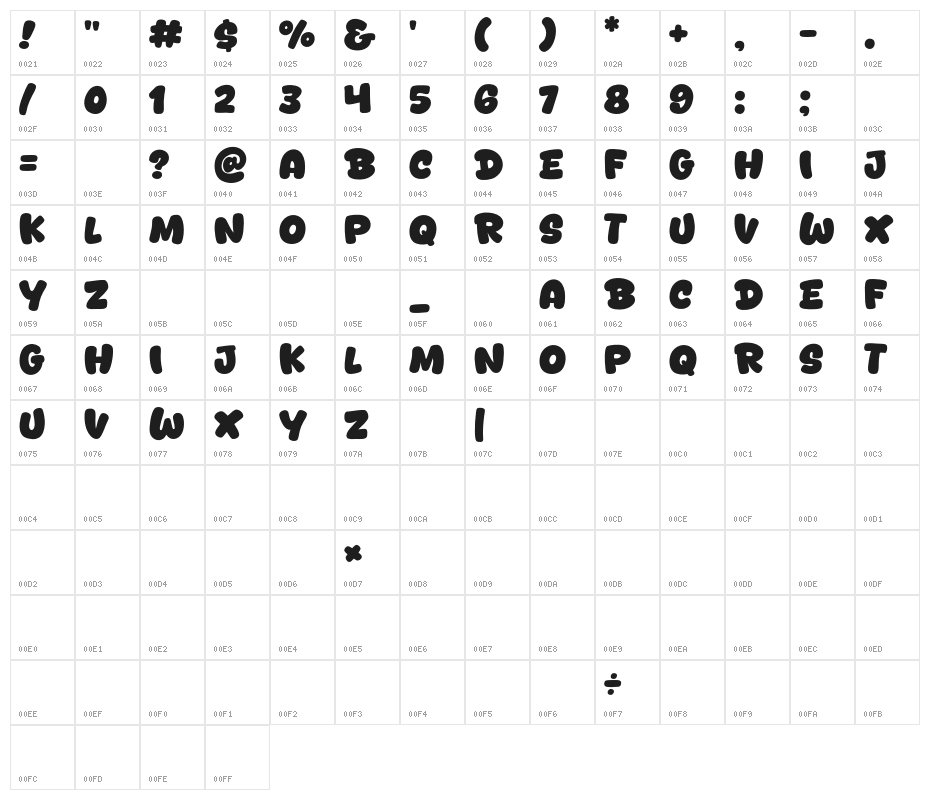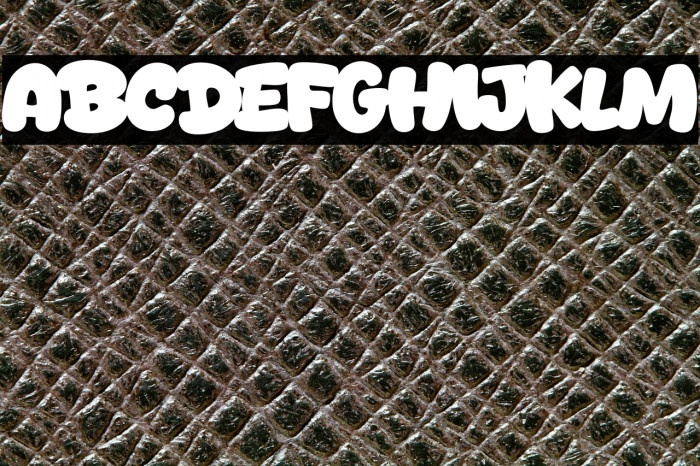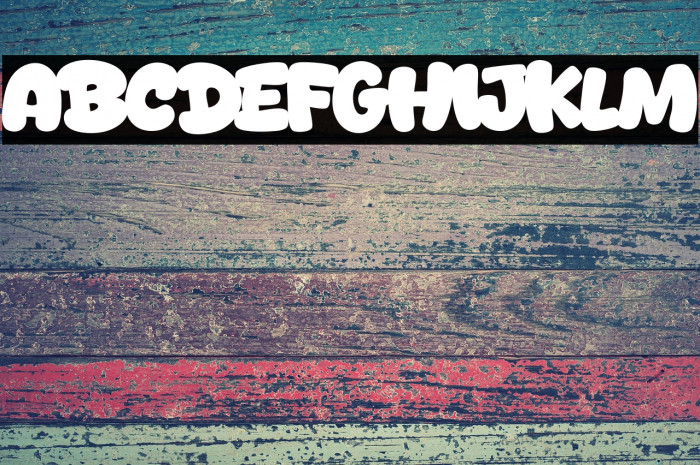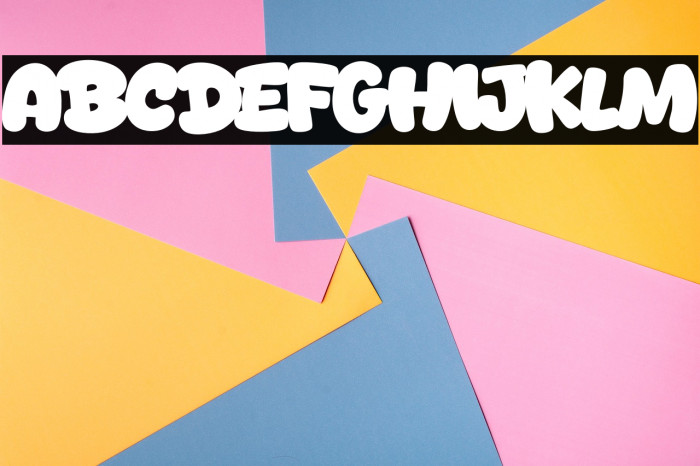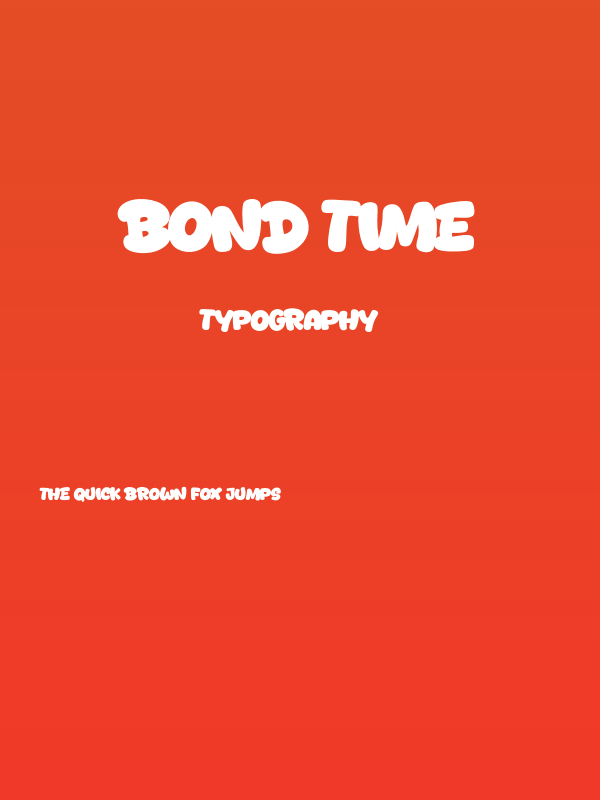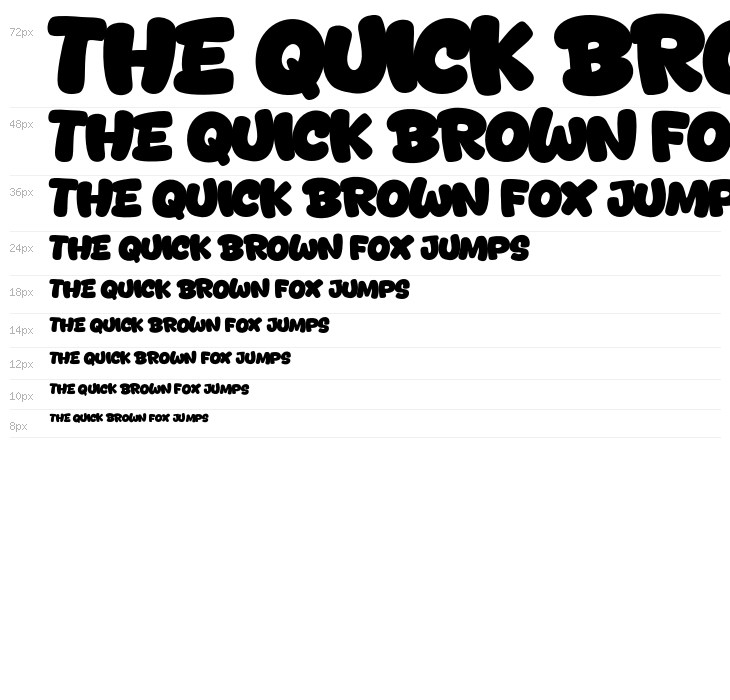
Bond Time Font
Bond Time Description
This font features a bold, playful style with rounded, thick strokes that give it a bubbly and friendly appearance. The characters are uniformly wide, contributing to a cohesive and balanced look. The uppercase and lowercase letters maintain a consistent weight, enhancing readability while adding a touch of whimsy. The numbers and special characters are designed to match the overall style, ensuring a harmonious visual experience. This font's unique personality makes it suitable for creative and informal applications.
| Proposed Projects | Ideal for children's books, playful branding, party invitations, and casual social media graphics. |